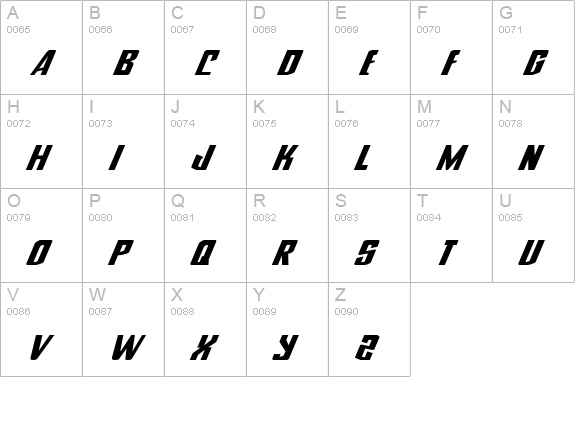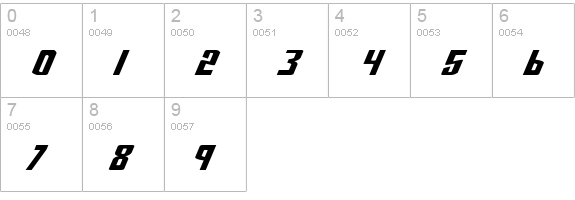
National Express Italic Font Details
National Express Italic is a distinctive, italic variant in the National typeface family \xE2\x80\x94 well suited to design and typography projects.
National Express Italic font is a stylish and modern typeface that exudes sophistication and elegance. With its sleek lines and unique curves, this font is the perfect choice for adding a touch of class to any design project. The italicized version of the National Express font brings a sense of dynamism and movement, making it ideal for use in headings, quotes, and other attention-grabbing text. The best part? National Express Italic font is available for free download at FontsMarket.com. Whether you're a designer looking to elevate your creations or a content creator in need of a fresh look, this font is a must-have in your toolkit. Don't miss out on the opportunity to enhance your projects with the exquisite National Express Italic font today!